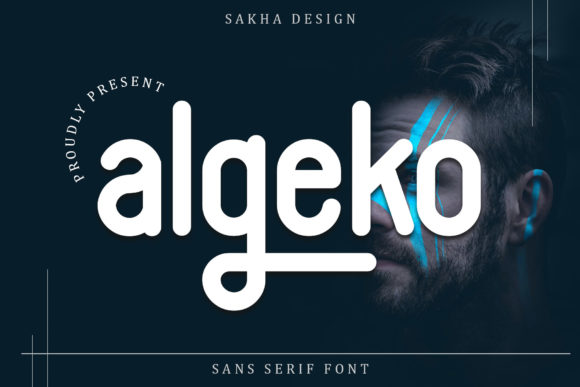
Behold Algeko, the Sans Serif font family that defies convention and captivates hearts with its timeless allure. Crafted by the visionaries at Sakha Design, this typographic masterpiece transports you to an era of elegance, simplicity, and unbridled creativity. Algeko isn't just a collection of letters and symbols; it's an artistic odyssey, a journey through the realms of visual expression.
With its clean lines, open forms, and subtle vintage charm, Algeko dances across your designs like a breath of fresh air. Its meticulously balanced proportions create a visual harmony that complements any project, from classic to contemporary. Whether you're crafting logos, branding, web design, or print masterpieces, Algeko becomes your trusted companion, adding a touch of sophistication and understated beauty to every endeavor.
But Algeko is more than just a pretty face. Its versatility knows no bounds. Whether you're navigating the digital realm or the printed page, Algeko adapts like a chameleon, seamlessly blending with your vision. Its crisp, legible structure ensures that your message is delivered with clarity and impact, leaving an indelible mark on your audience.
And oh, the possibilities! Algeko is your blank canvas, ready to be painted with the colors of your imagination. Its vintage-inspired aesthetic adds a touch of nostalgia and charm to any project, evoking a sense of history and authenticity. Create timeless logos that evoke a sense of heritage, design enchanting wedding invitations that capture the essence of romance, or craft business cards that command attention with their understated elegance.
With Algeko by your side, the boundaries of creativity dissolve, and your designs take flight. Its adaptable nature makes it the perfect companion for a wide range of projects, from traditional print media to cutting-edge digital platforms. Experience the joy of crafting designs that resonate, designs that captivate, and designs that leave a lasting impression.
Embark on this typographic adventure with Algeko and discover a world of creative possibilities. Let your imagination run wild, let your designs speak volumes, and let Algeko be your trusted guide. The world of beauty and elegance awaits; all you need is the Algeko font family to unlock its secrets.